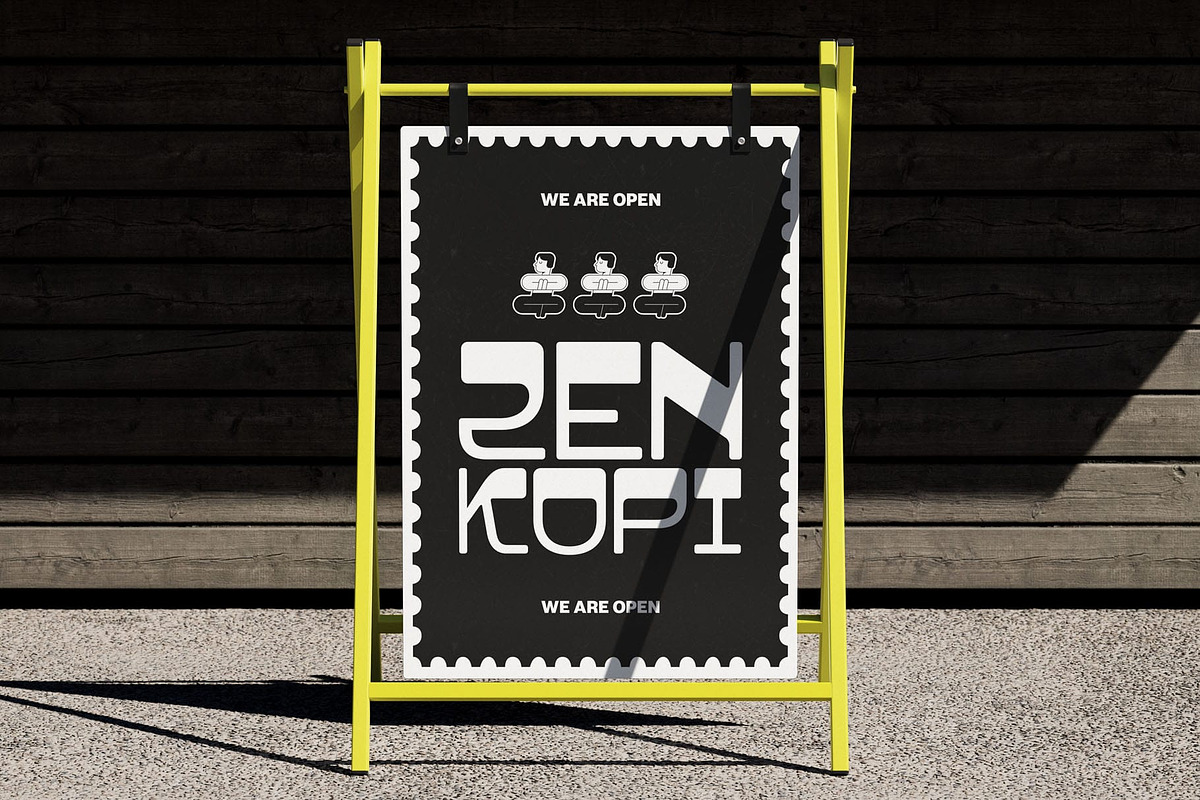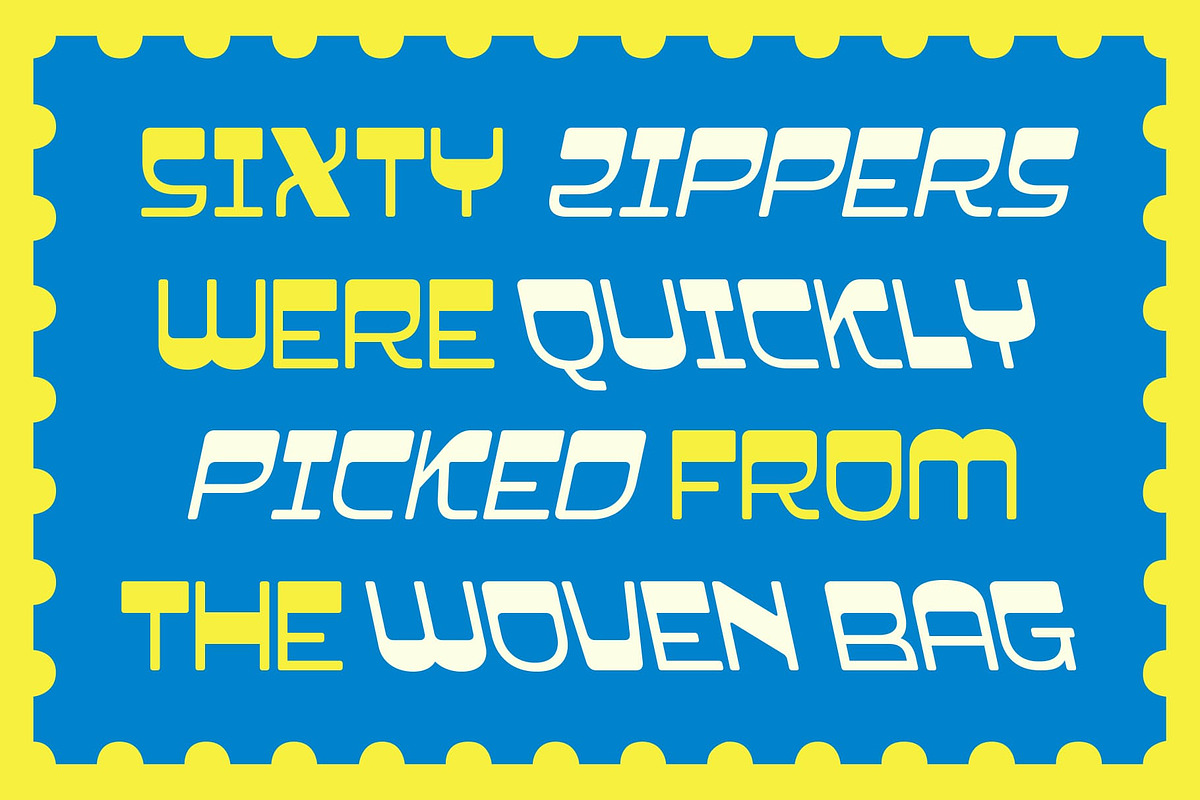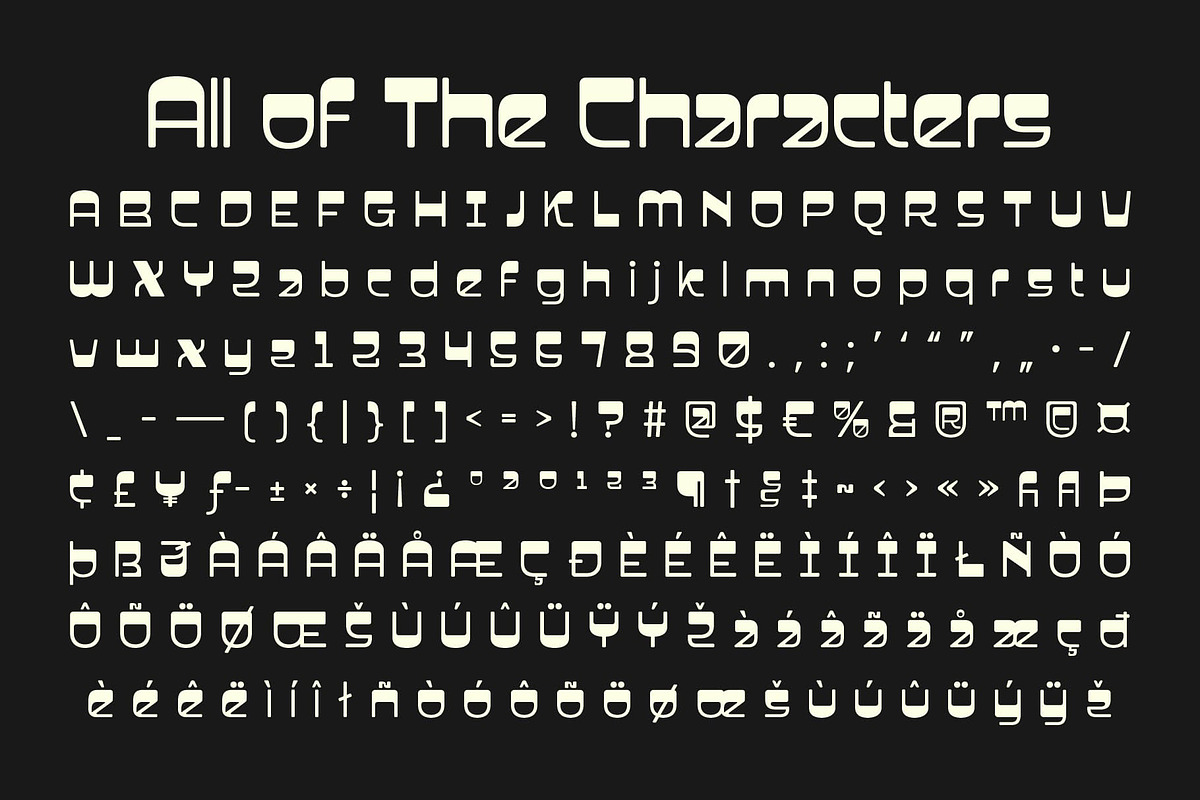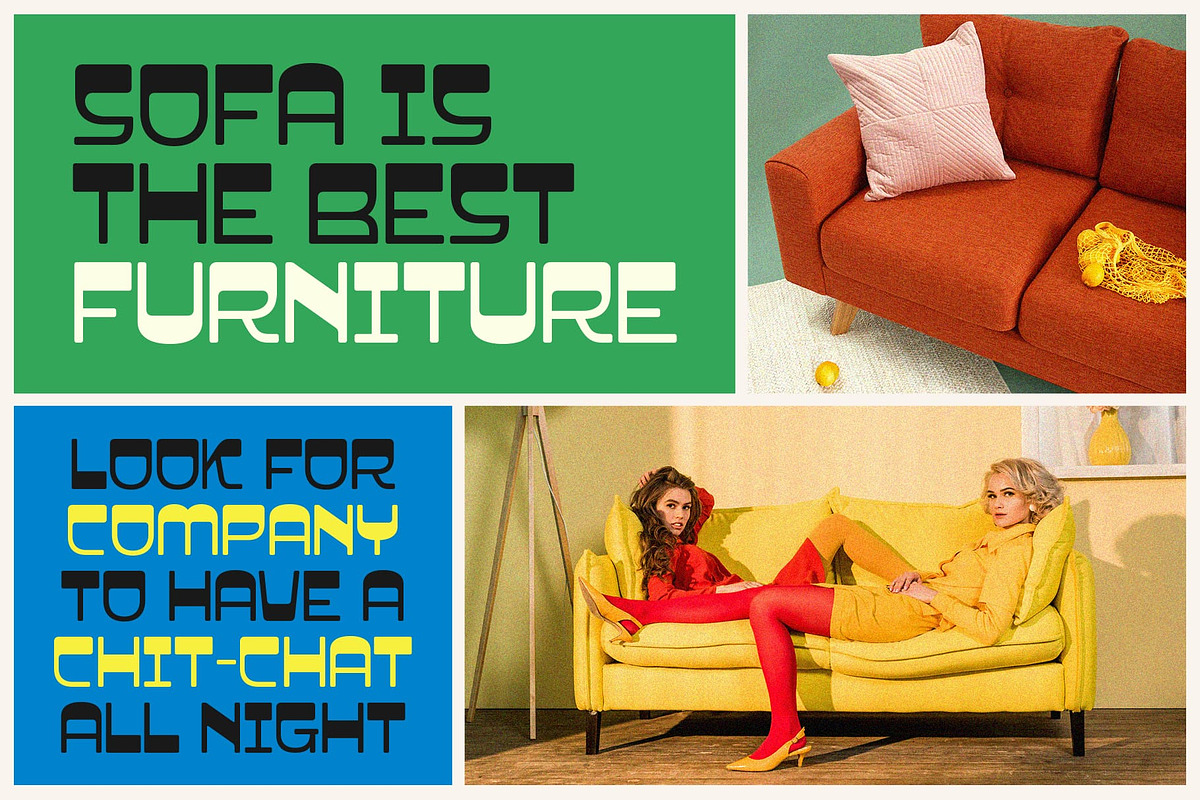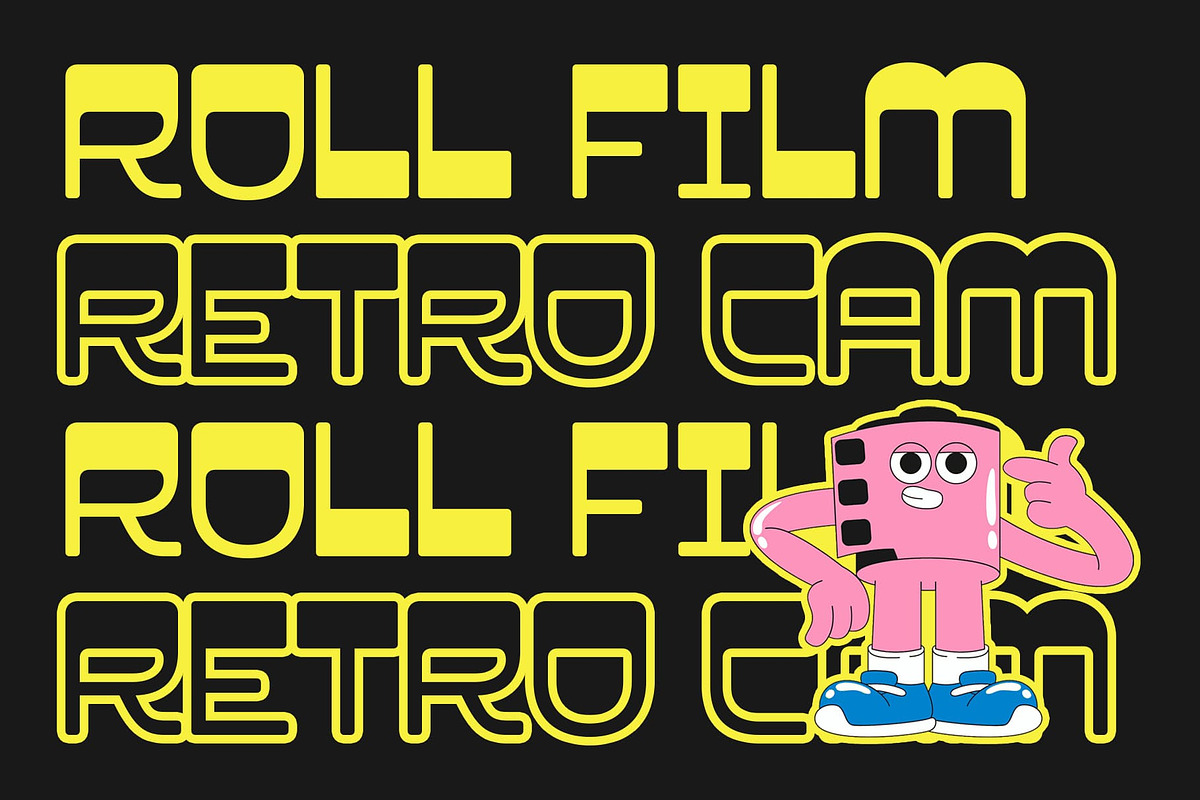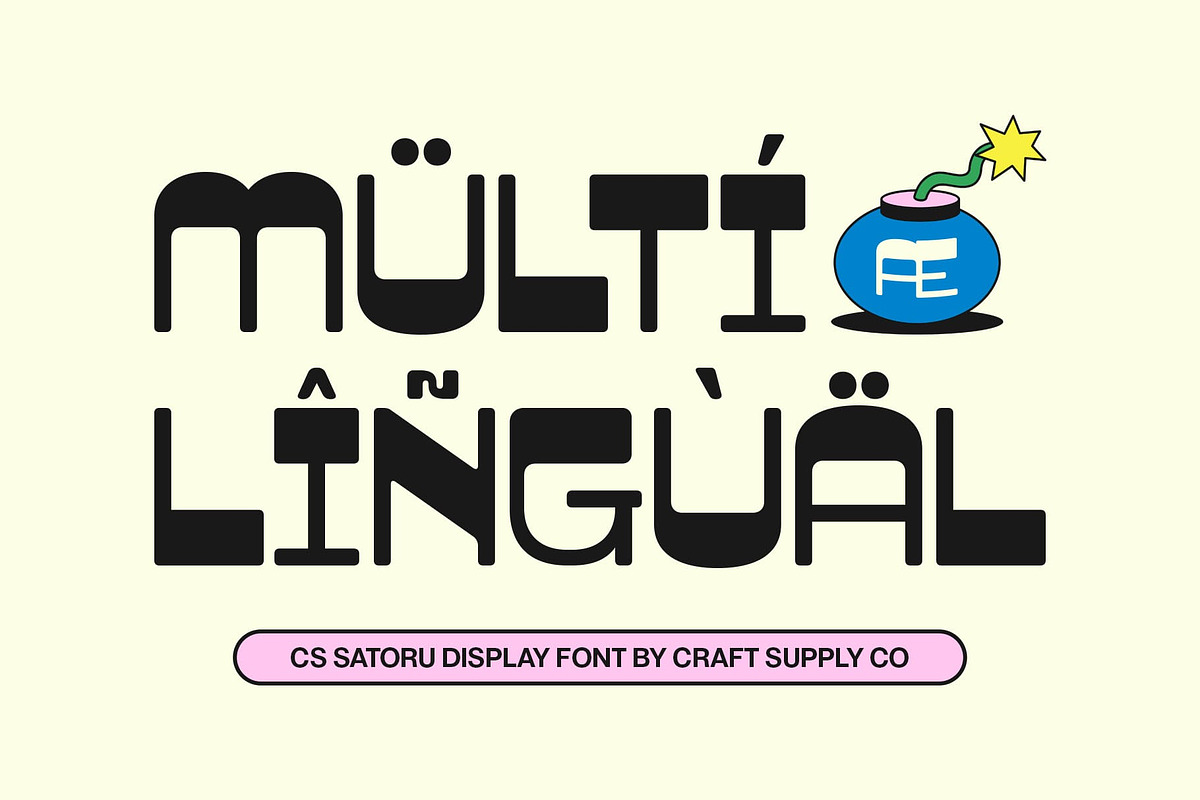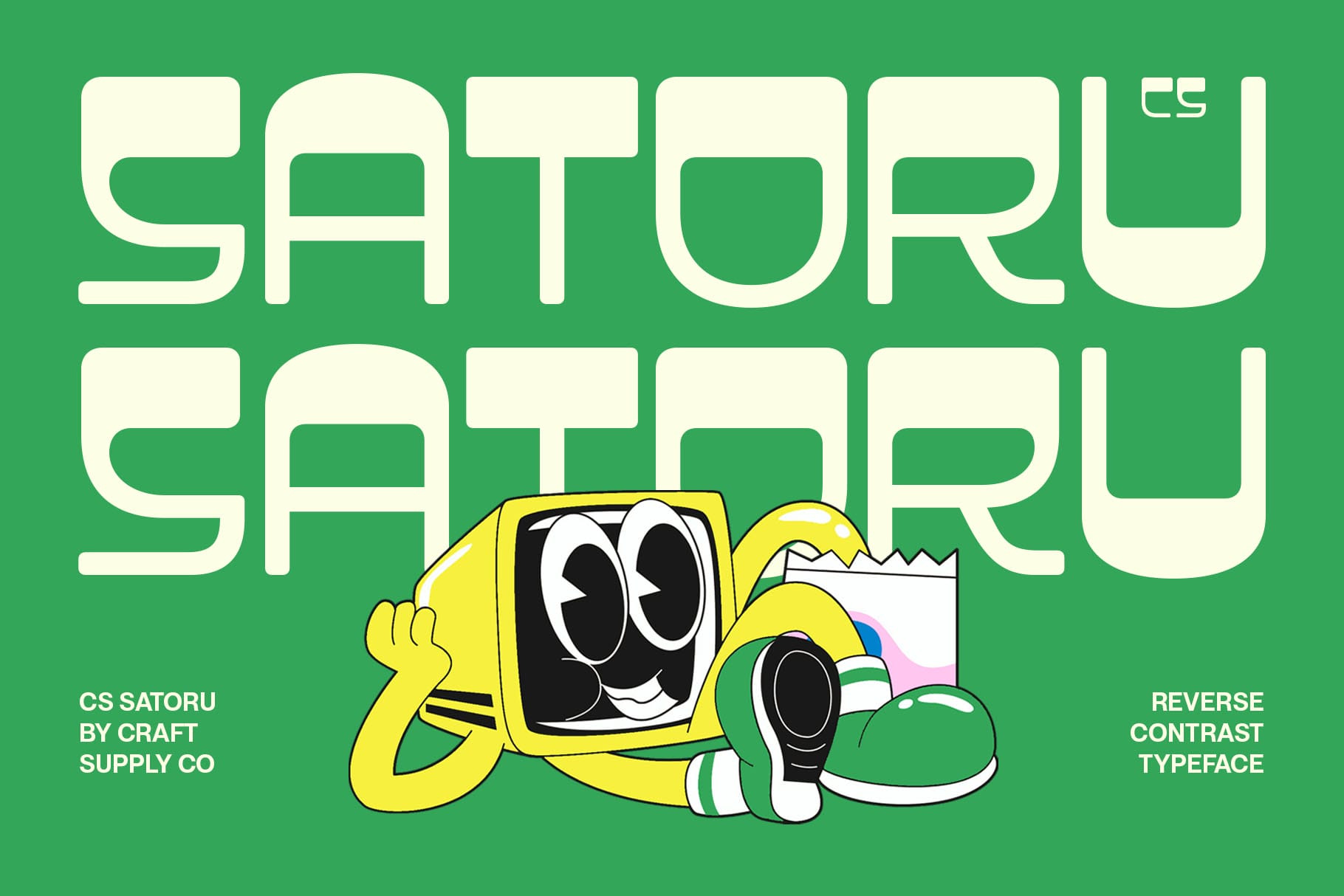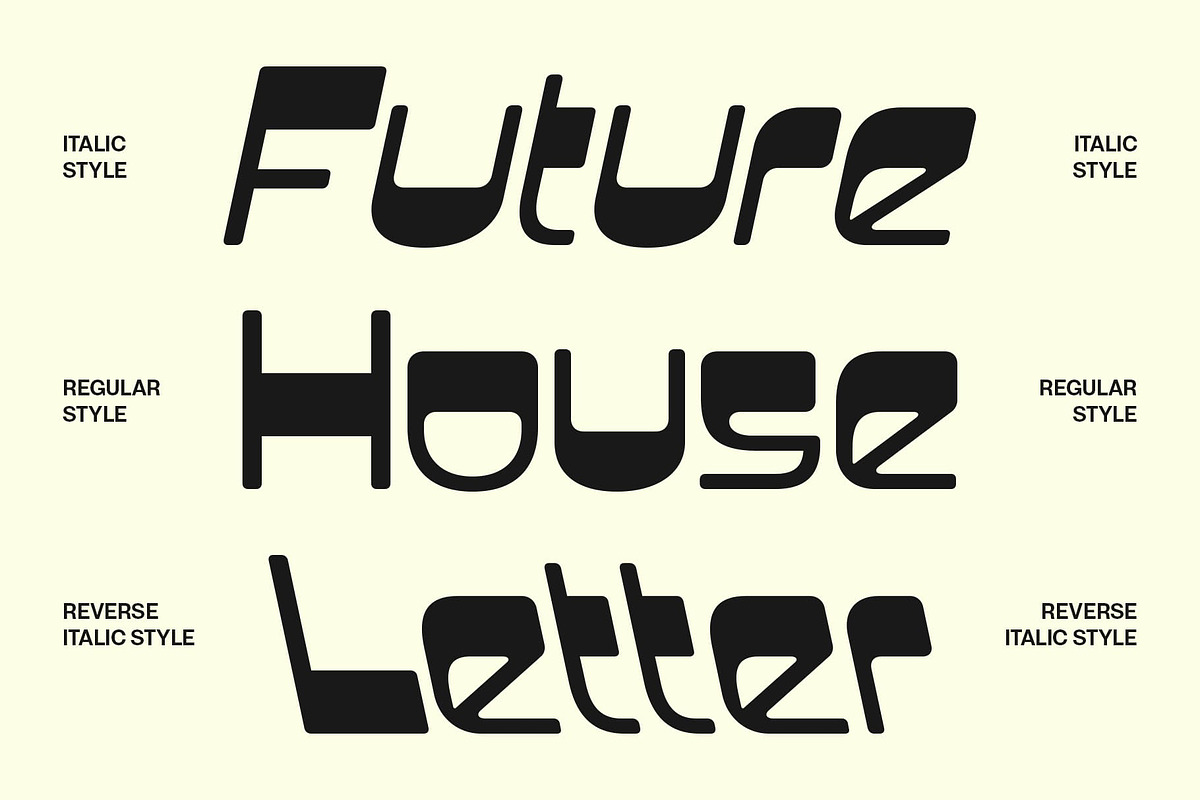
CS Satoru – Reverse Contrast Font
CS Satoru – Bold Retro Form with Modern Confidence
Striking Reverse Contrast Design This is a reverse contrast display font that blends retro character with modern style. Its bold letterforms and unexpected weight distribution create a dynamic visual rhythm, offering a unique twist on traditional sans serif design.
Modular Aesthetics with a Classic Spirit Featuring geometric shapes and structured balance, this font draws inspiration from classic design movements while maintaining a clean, contemporary edge. This combination of retro modularity and modern clarity makes it visually engaging and full of personality.
Perfect for Distinctive Branding and Editorial Work Ideal for posters, branding, and editorial layouts, this font commands attention through its confident form and expressive contrast. It’s a perfect choice for designers aiming to create visuals that stand out while retaining a sense of sophistication.
Retro Style, Modern Versatility This font captures the spirit of vintage design with a forward-thinking attitude. Its bold shapes and modular structure make it a powerful tool for distinctive branding, promotional materials, and creative projects that seek both nostalgia and innovation.
- CS Satoru Regular
- CS Satoru Italic
- CS Satoru Reverse Italic